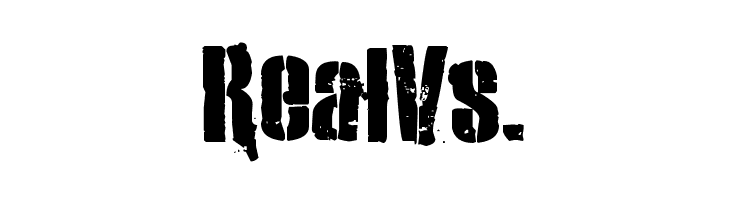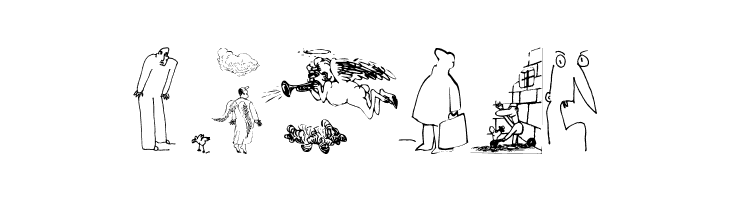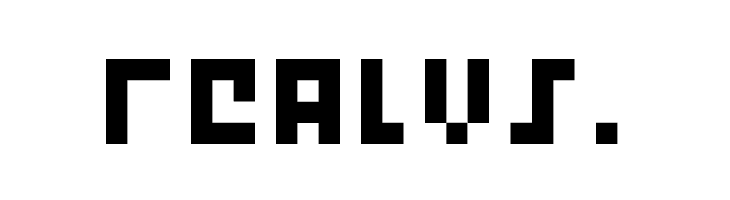
• Evil Of Frankenstein
• Excelsior Comics 3D Italic
A bold, 3D italic font with a playful and dynamic style.
• Excelsior Comics 3D Regular
A bold, 3D comic-style font with playful, rounded characters.
• Excelsior Comics Condensed
A playful, bold, and slightly condensed font with rounded edges.
A bold, condensed, and italic font with a playful and dynamic style.
• Excelsior Comics Expanded
A playful, bold font with rounded, consistent strokes, ideal for comic-style designs.
• Excelsior Comics Expanded Italic
A bold, expanded, and italicized font with a playful and friendly style.
• Excelsior Comics Italic
A bold, playful, and slightly italic font with rounded characters.
• Excelsior Comics Leftalic
A playful, bold, and slightly slanted font with rounded edges, ideal for informal and fun projects.
• Excelsior Comics Regular
A bold, rounded font with a playful and friendly style.
• Excite
A modern, clean sans-serif font with geometric letterforms and consistent stroke widths.
• Excite Bold
A bold, modern font with strong geometric shapes and clear readability.
• Excite Bold Italic
• Excite Italic
A sleek, modern italic font with smooth curves and a professional appearance.
• ExcuseMe
A whimsical, cartoon-illustrated decorative font.
• Execute 2000
A bold, pixelated font with a geometric, retro digital style.
• Exedore
A bold, futuristic font with geometric, rounded characters.
• Exedore 3D
A bold, 3D geometric font with rounded edges and a modern aesthetic.
• Exedore 3D Italic
A bold, 3D italic font with a futuristic and geometric design.
• Exedore College
A bold, geometric font with outlined characters and a futuristic style.
• Exedore College Italic
Bold, italicized font with a college varsity style and outlined characters.
• Exedore Condensed